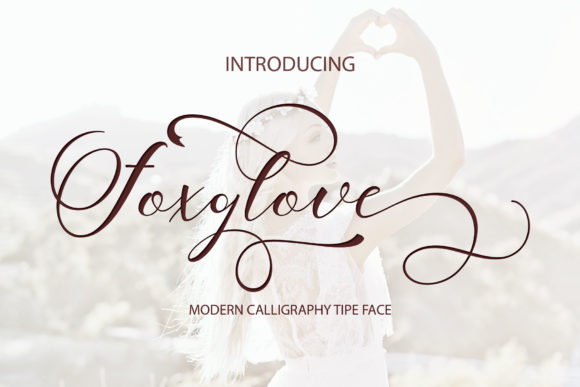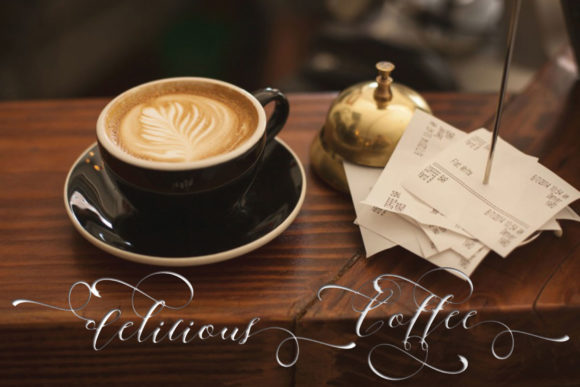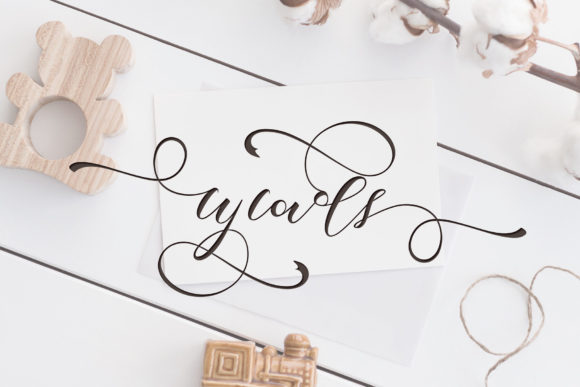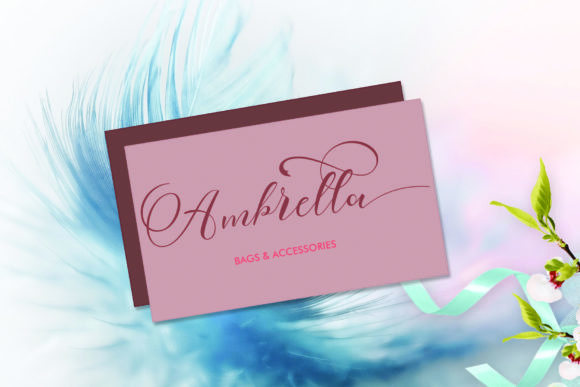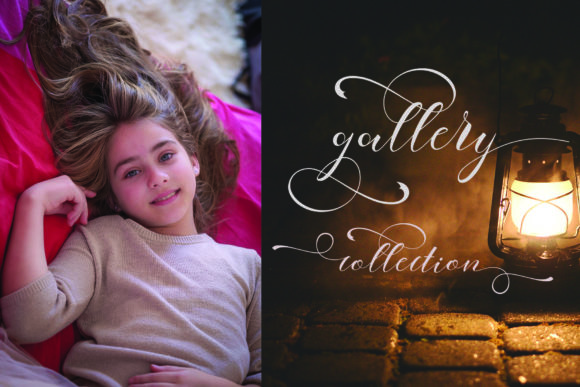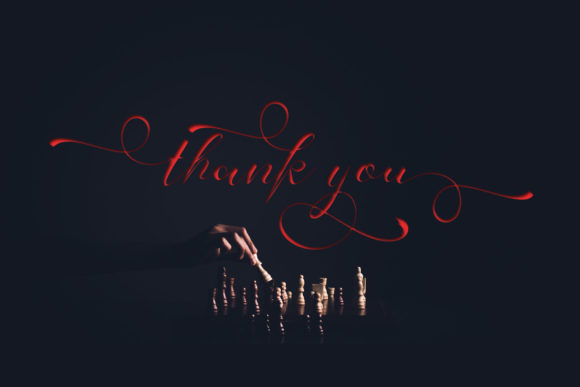
Foxglove Script Font
About Foxglove Script Font
The Foxglove is a modern, handwritten calligraphy typeface. With this font, you’ll get yourself a remarkable script font to add to your collection!
It’s the perfect font to add a touch of elegance to your designs!